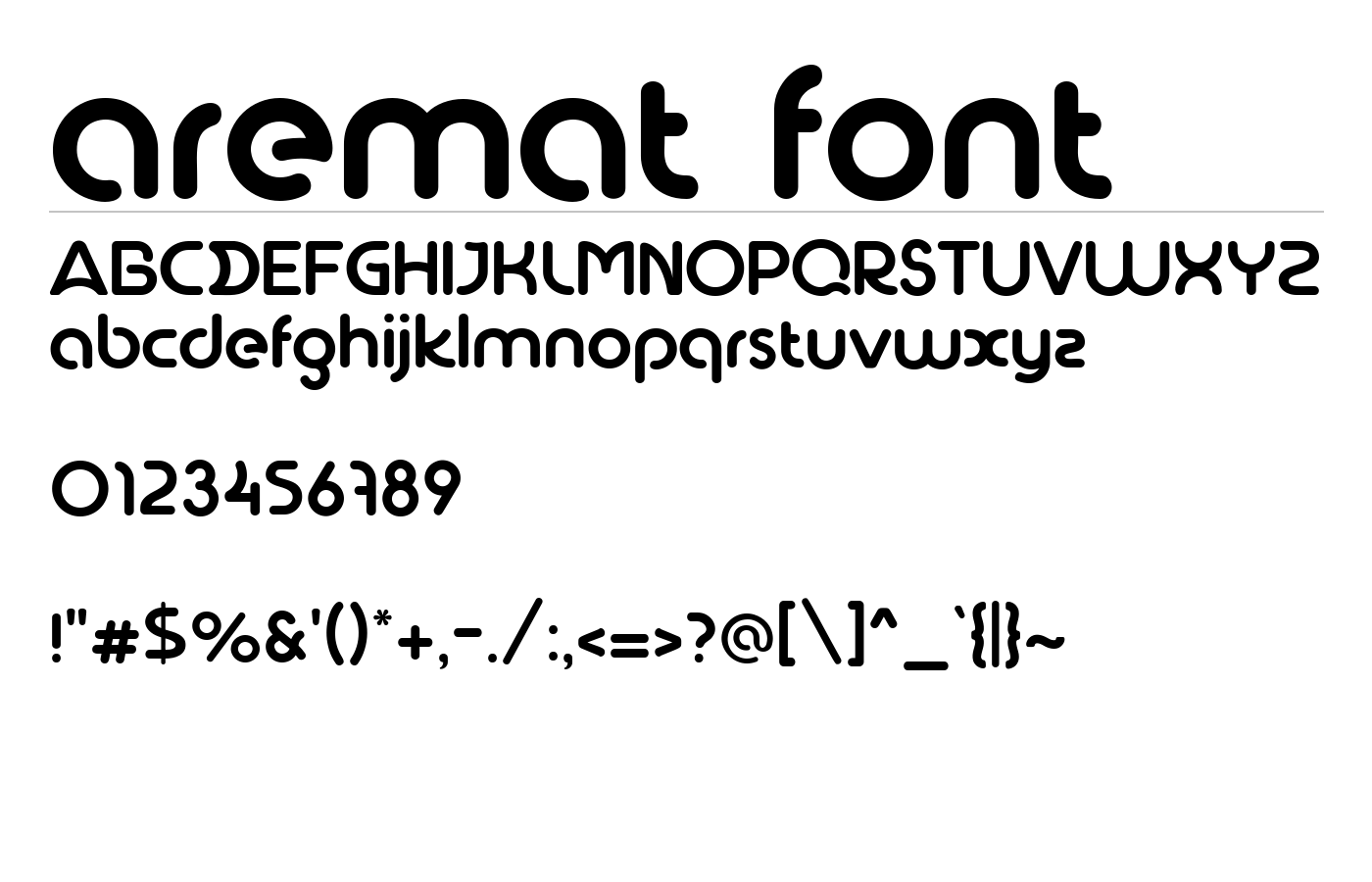
Aremat is a modern, rounded sans serif font with a playful and friendly personality. Its smooth, even strokes and unique letterforms featuring gentle curves and distinctive details create a casual yet stylish look, making it ideal for branding, headlines, and creative projects that seek a warm and approachable vibe. This font works well in digital and print designs where a contemporary, inviting tone is desired.
aremat font
About aremat font
| Font family | aremat font |
| Designer | 177Studio.com |